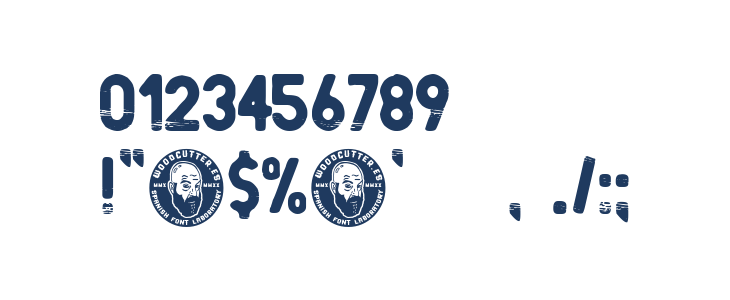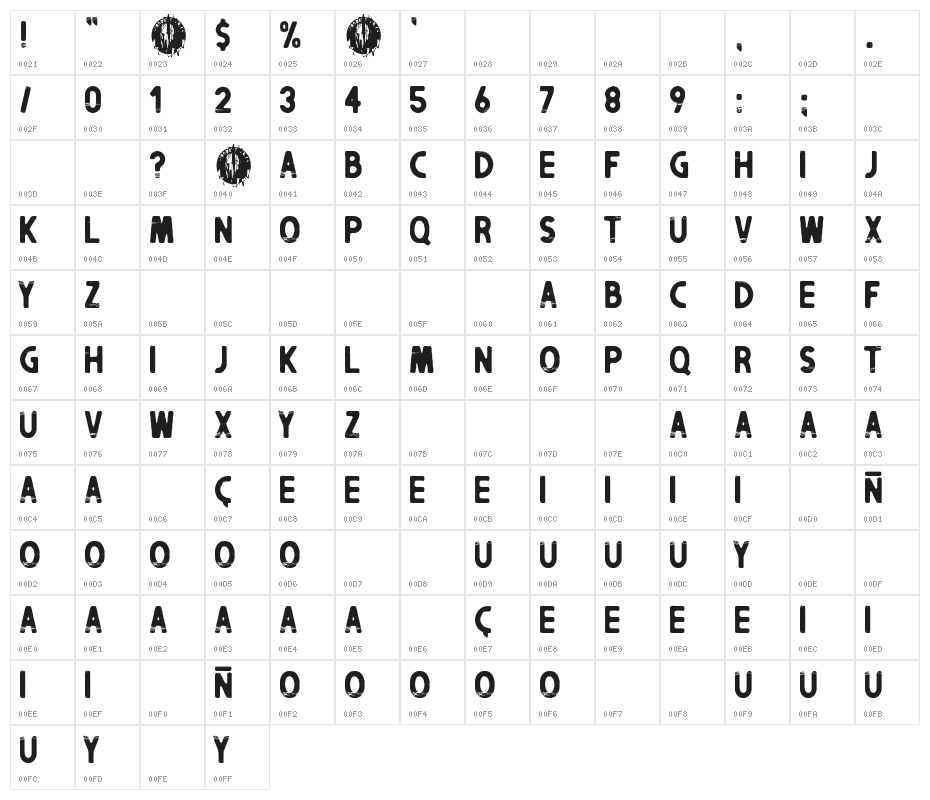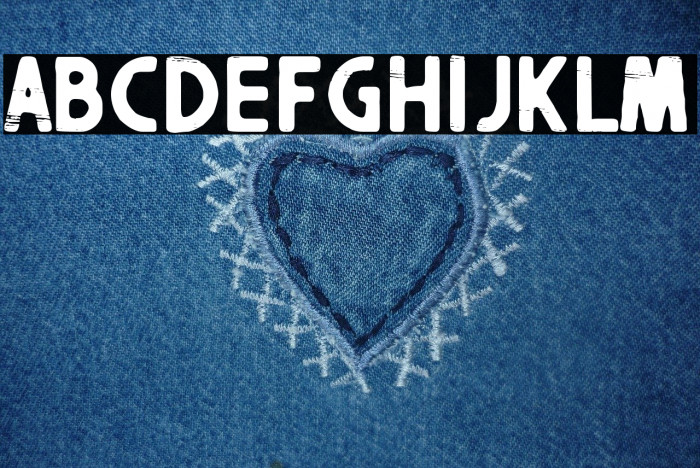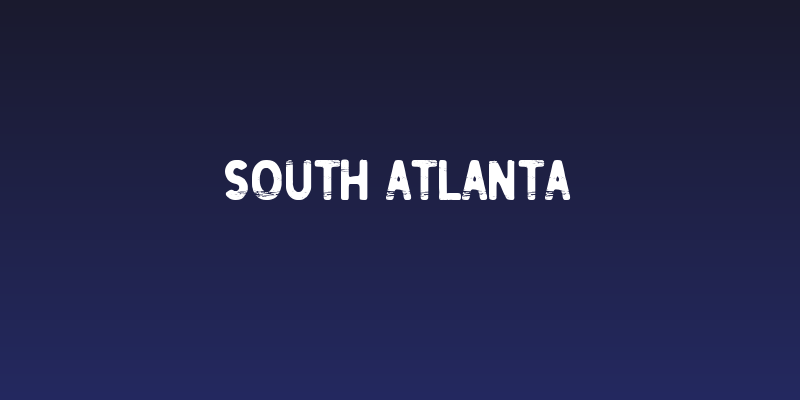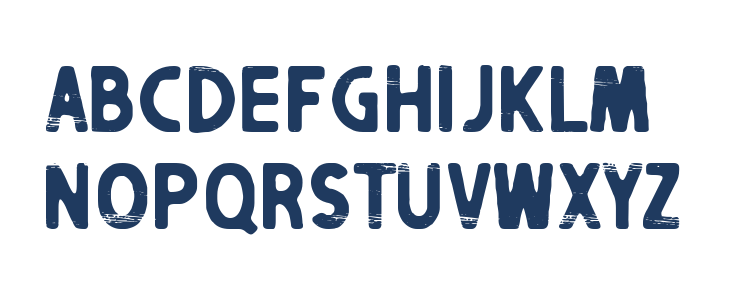
South Atlanta Font
South Atlanta Description
This font features a bold and distressed style, characterized by its rough, textured appearance that mimics a worn or weathered look. The uppercase and lowercase letters maintain a consistent thickness, providing a strong visual impact. The numerals and special characters follow the same design, ensuring uniformity across all glyphs. This font's unique aesthetic makes it suitable for projects that require a vintage or rugged feel, such as posters, branding, or packaging. Its boldness ensures readability while the distressed texture adds a layer of visual interest.